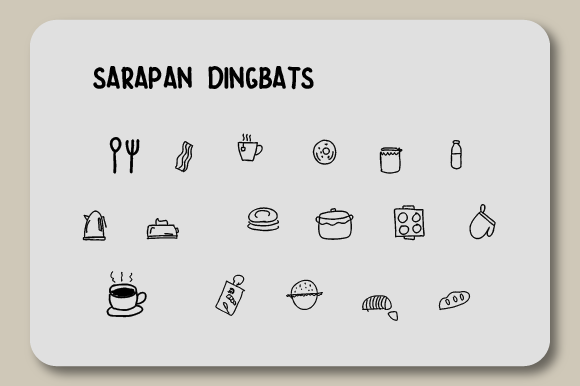
Introduction to Sarapan Font Font
Fonts play a crucial role in design, and the Sarapan Font font is a typeface that brings both character and versatility to any project. Whether you’re working on a branding project, a website, or a print design, the Sarapan Font font offers a unique style that can elevate your work.
Sarapan is an incredibly useful dingbats font.
It will make each of your designs come alive .
Key Features of Sarapan Font Font
Why Choose Sarapan Font Font?
The Sarapan Font font is more than just a typeface – it’s a design tool that helps you communicate your message with style and clarity. Its unique character set and versatile design make it suitable for a wide range of applications, from elegant invitations to bold headlines.
With its carefully crafted letterforms and balanced proportions, the Sarapan Font font ensures readability and visual appeal across all mediums.
What makes Sarapan Font font special?
The Sarapan Font font stands out with its unique design, exceptional readability, and versatility across various design applications.